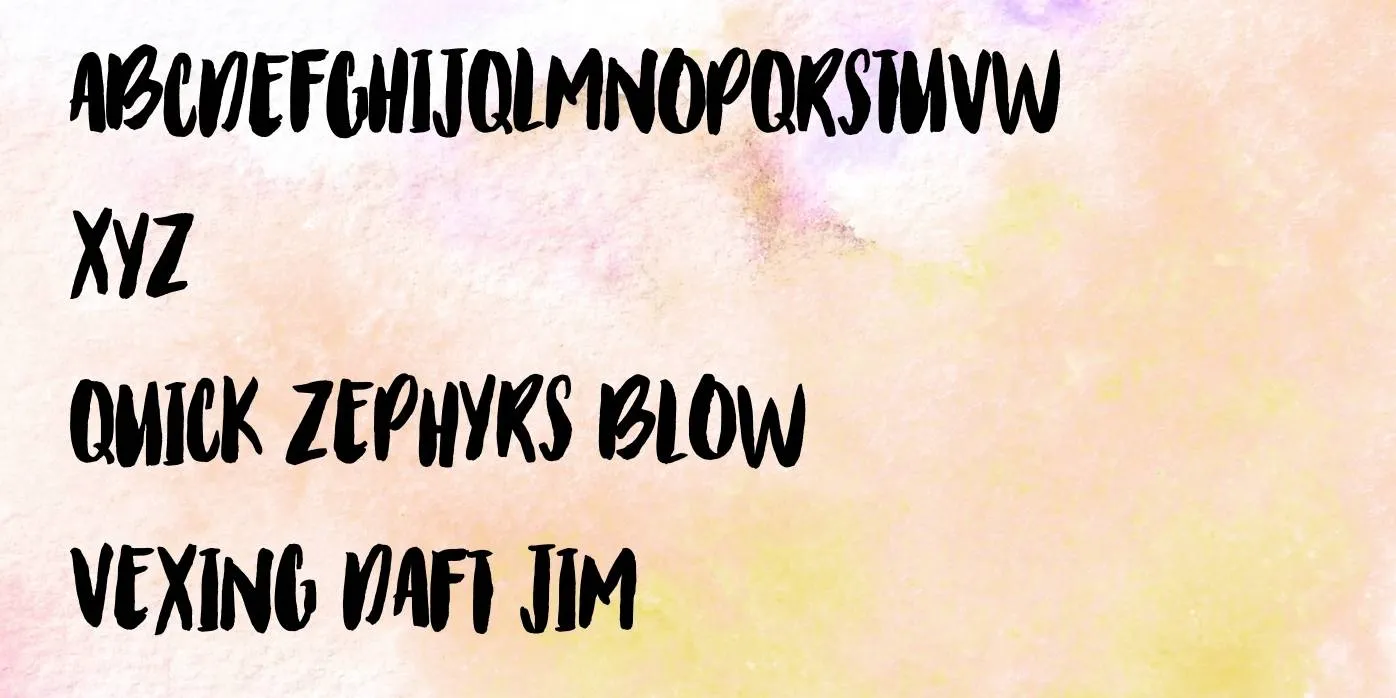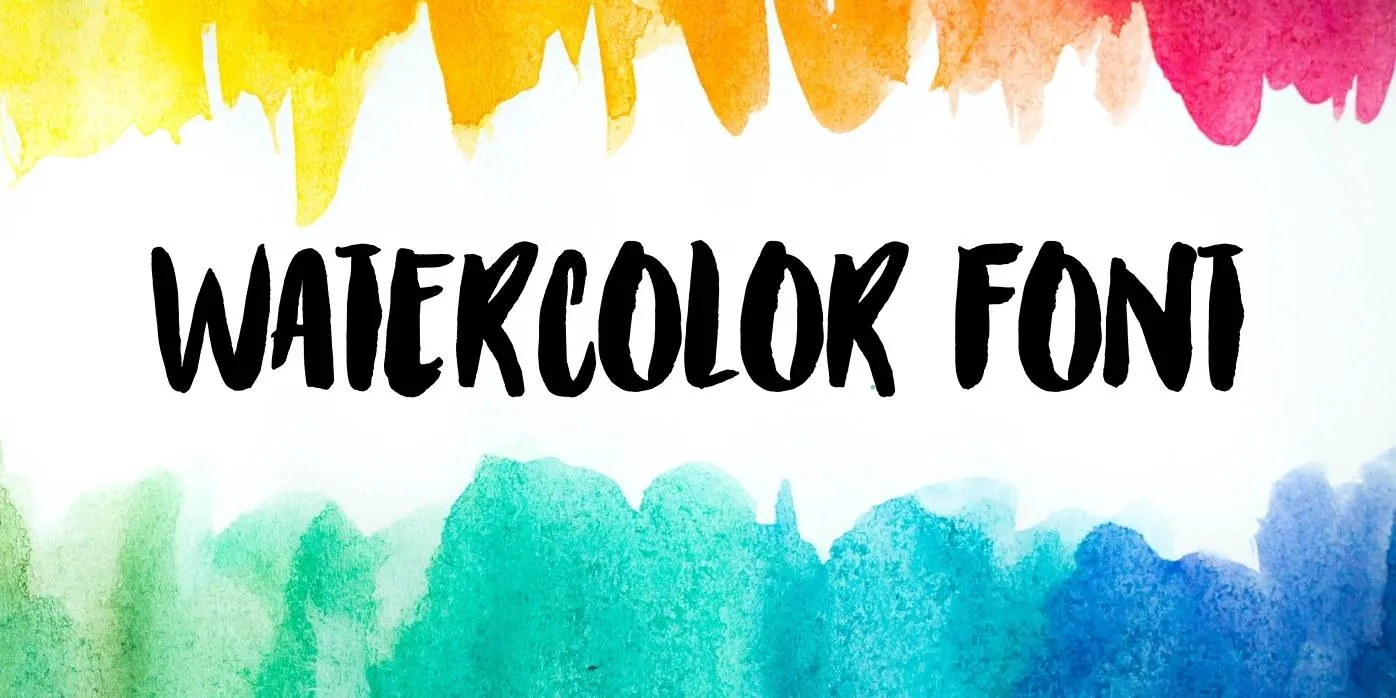
Watercolor Font
The watercolor font is the most beautiful and high-standard brush font with a beautiful handmade textural feeling. It belongs to a Brush typeface family and the designer of this typeface is Premiere Graphics. It has TTF and OTF features and is free for personal use only. Its OTF features have Opentype layout and Postscript outlines while its TTF features have Opentype layout and Truetype outlines.
This unique typeface has beautiful glyphs includes Uppercase and Lowercase Letters, Some symbols, Numbers / Numerals, and super alternates as well. It can provide the extremely pairing functions with Shockwave Collection Font, and you may make many stunning things with the combination of these two typefaces. You may also generate this elegant typeface through the generator tool even without downloading.